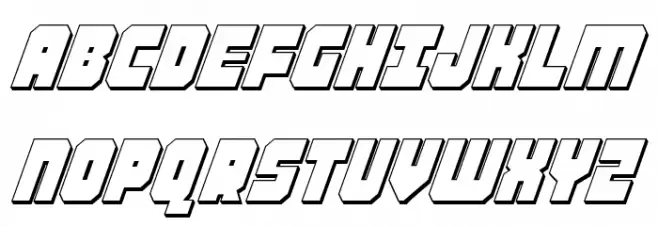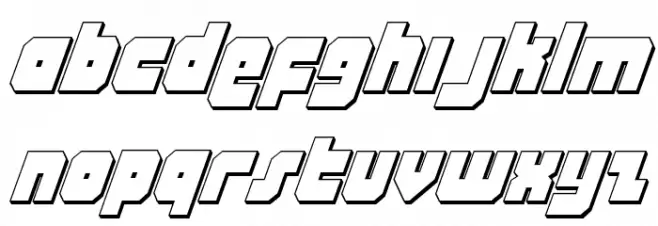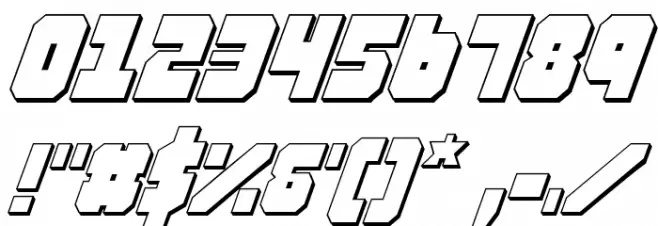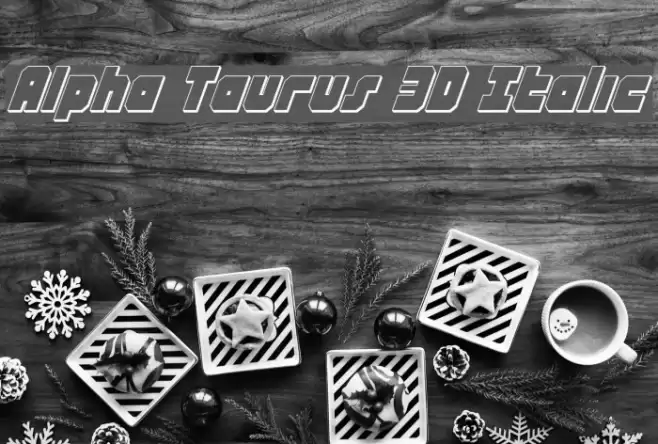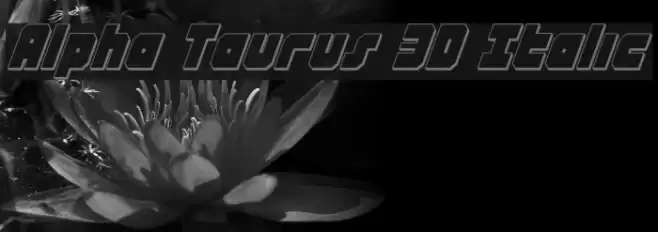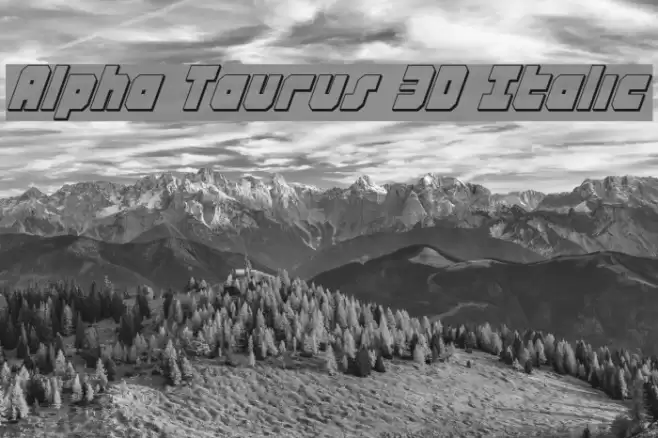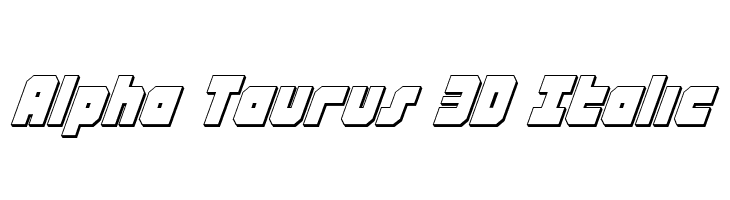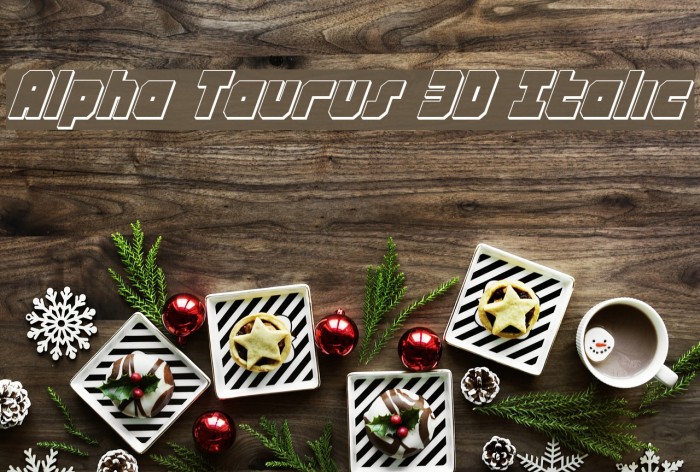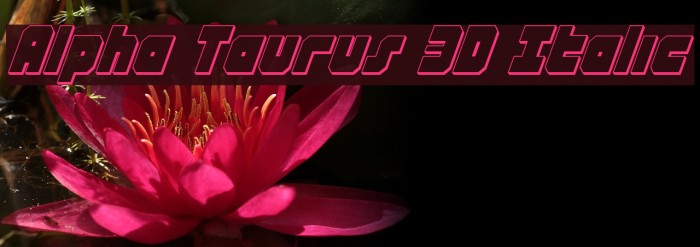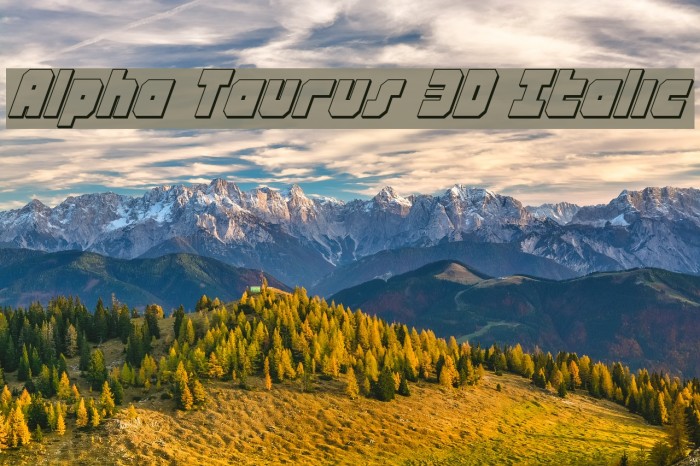
Alpha Taurus 3D Italic
This font features a bold, three-dimensional design with an italic slant, giving it a dynamic and futuristic appearance. The characters are outlined, creating a sense of depth and movement. The uppercase and lowercase letters maintain a consistent style, with sharp angles and a geometric structure. Numbers and special characters are designed to match the bold and angular aesthetic, making the font suitable for eye-catching displays. The overall look is modern and tech-inspired, ideal for projects that require a strong visual impact.
A bold, 3D italic font with a futuristic and dynamic style.
- Proposed Projects: Ideal for video game titles, tech branding, futuristic posters, and digital media.
- Contrast: High